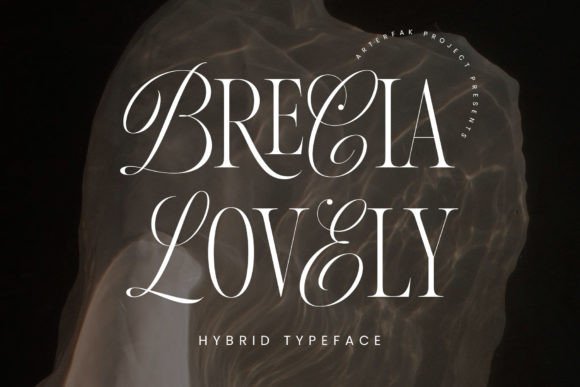
A First Impression of Brecia Lovely
Brecia Lovely is a dynamic, elegant, and luxurious impression display font inspired by fashion magazines and modern typography. Its sleek lines, flowing curves, and exquisite details make it perfect for posters, flyers, stories, magazines, blogs, editorials, titles, displays, and more. What sets it apart is its PUA encoding, which allows easy access to all glyphs and swashes, giving you unparalleled creative control.
An Honest Review of Brecia Lovely
• ✨ Elegant and sophisticated design, perfect for high-end brands
• ✅ Wide range of glyphs and swashes for endless creative possibilities
• ⚡️ Easy to use and navigate, even for those new to design
• 🌈 Highly versatile, suitable for various design projects and applications
• 🤔 May require some time to get familiar with OpenType features and glyphs
• ⚠️ Not ideal for body text or long-form content, better suited for headlines and titles
The Story Behind Brecia Lovely
Brecia Lovely was inspired by the world of fashion and modern typography. Its creator aimed to craft a font that would evoke the elegance and sophistication of high-end fashion magazines, while also being versatile and easy to use. The result is a stunning display font that’s perfect for designers, crafters, and creative hobbyists looking to elevate their projects.
A: PUA (Private Use Area) encoding allows font creators to include additional glyphs and characters that aren’t part of the standard Unicode range. This means you get access to more swashes, glyphs, and stylistic alternates, giving you greater creative control.
Q: Is Brecia Lovely suitable for body text or long-form content?
A: While Brecia Lovely is an exquisite font, it’s better suited for headlines, titles, and display text. For body text or long-form content, consider a font with better readability and flow.